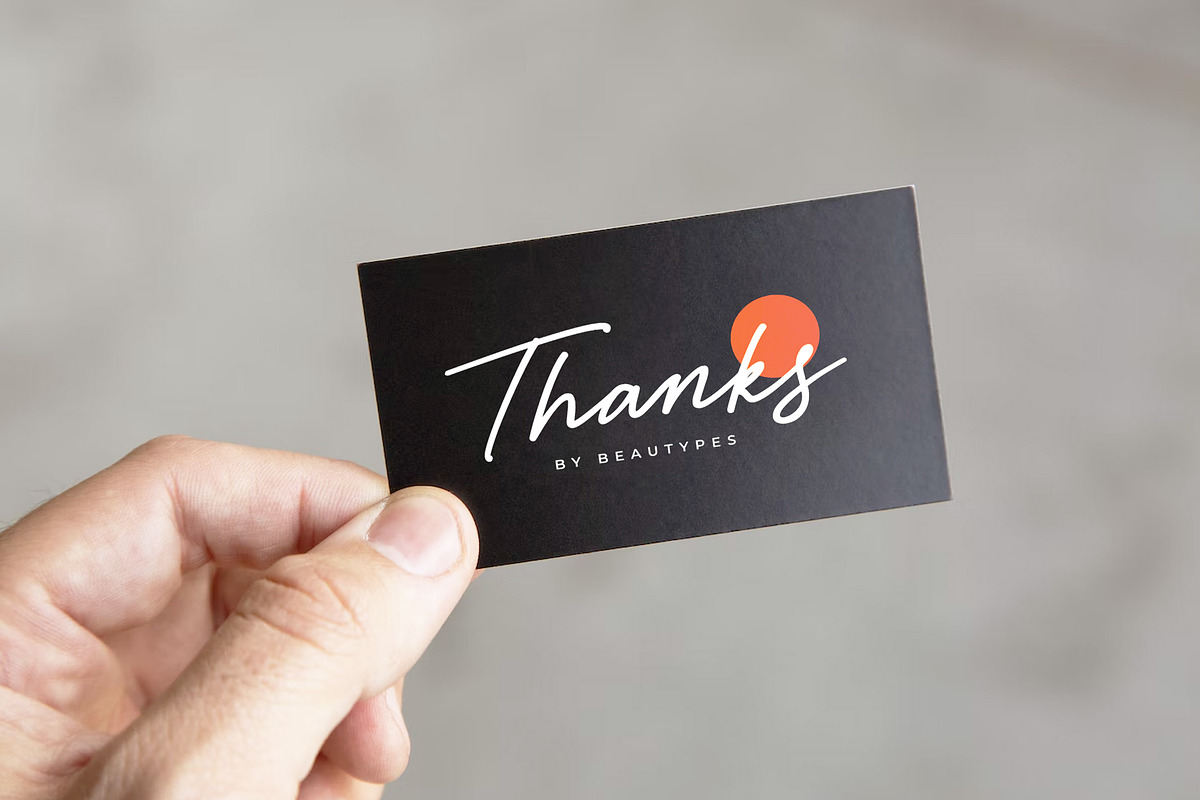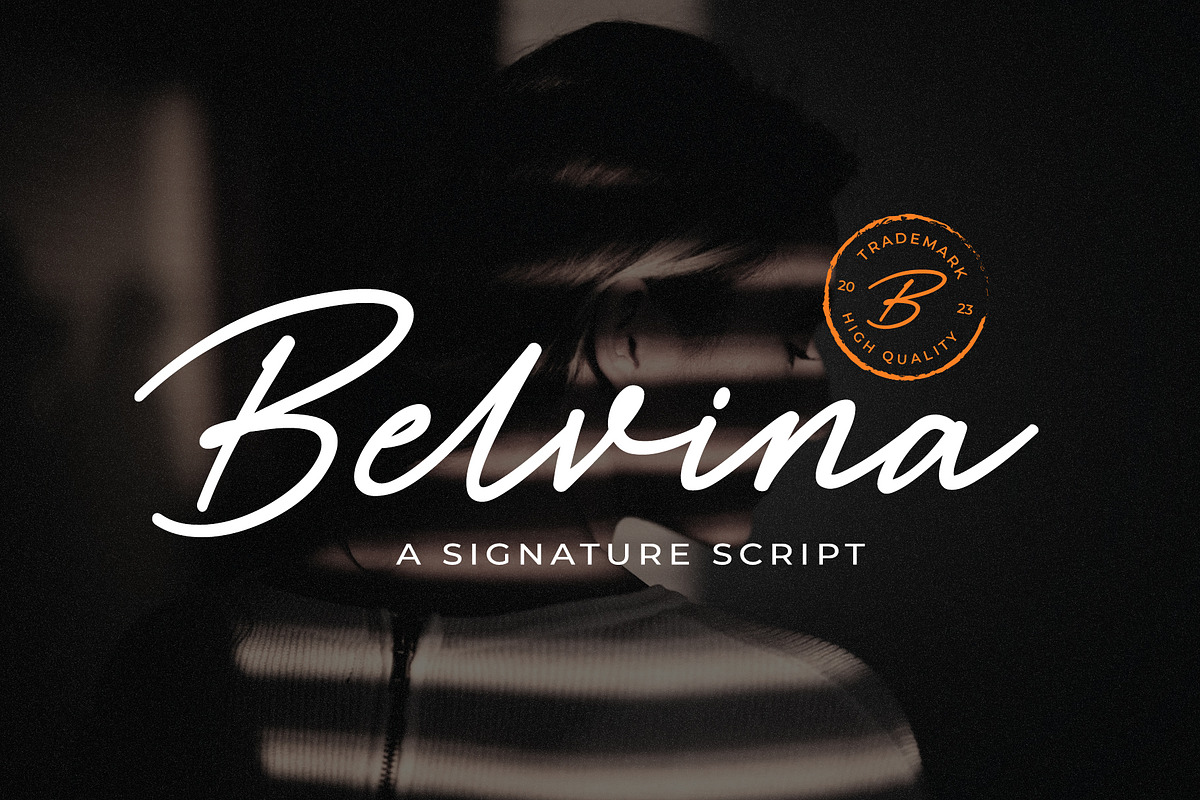
Belvina - a signature script
Belvina is a handwritten font that is suitable for branding, signature, wedding invitation, promotion, product packaging, and other needs.